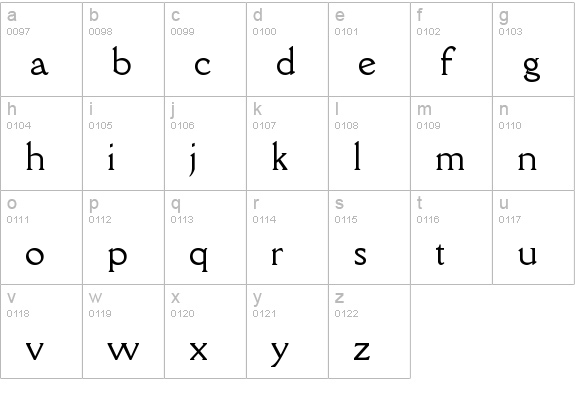
00209 Font Details
The 00209 font is a modern and stylish typeface that exudes elegance and sophistication. With its clean lines and sleek design, this font is perfect for a wide range of design projects, from branding to editorial design. Its versatility makes it a great choice for both print and digital applications. What's even better is that the 00209 font is available for free download at FontsMarket.com. This means that you can easily access this beautiful font without having to spend a dime. Whether you're a designer working on a client project or a student working on a personal project, the 00209 font is a great addition to your font library. Don't miss out on this fantastic opportunity to enhance your designs with the 00209 font. Download it for free today at FontsMarket.com and take your projects to the next level with this stunning typeface.